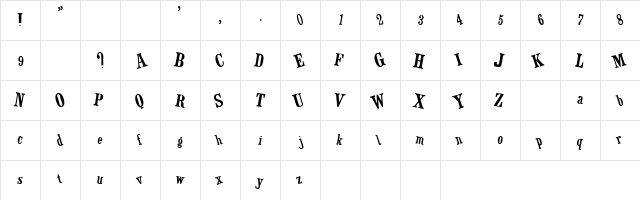
WesternWare Tilt
Design Context for WesternWare Typeface
WesternWare taps into classic Western woodtype traditions — bold, characterful, and impossible to ignore.
A natural fit for craft spirits, ranch branding, rodeo events, and Americana-inspired design work.
Font Pairing: Combine WesternWare with a simple slab or neutral sans — period-accurate companions reinforce the vintage feel without competing for attention.
Pro Tip: Use WesternWare for short, impactful bursts of text — it shines in poster headlines and product names rather than extended copy.